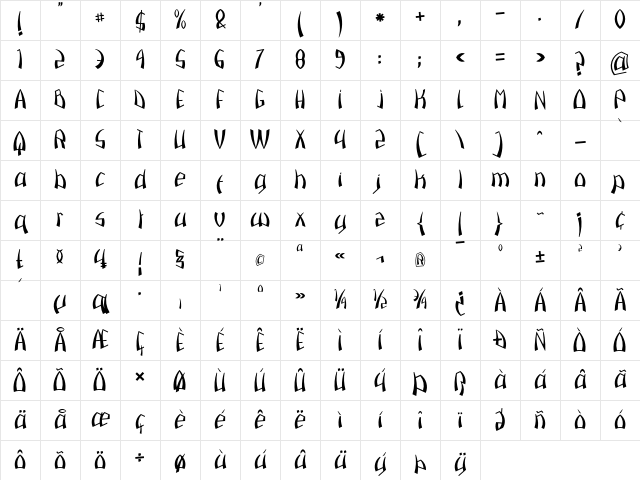
Pazuzu Regular Free Font
Pazuzu Regular
Foundry: Alberto Villanueva
Designer: Alberto Villanueva
Design Context for Pazuzu
Pazuzu is a composed and adaptable typeface that performs quietly and consistently across a wide range of design contexts.